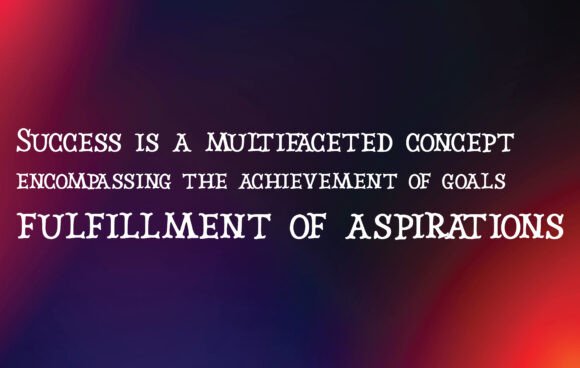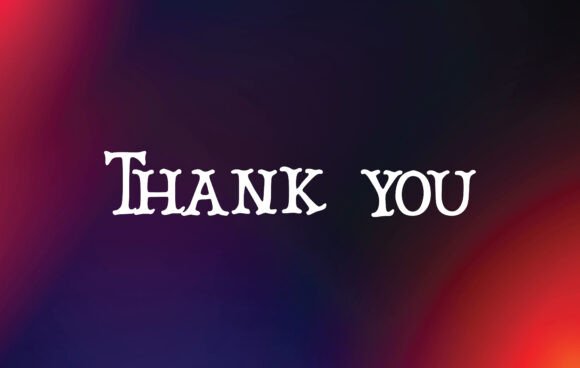
Have you ever stared at a blank screen, trying to come up with the perfect font for your latest design project? You know, that moment when the cursor blinks at you, daring you to make a decision? It’s a feeling we’ve all been there, and it’s exactly why we’re excited to introduce you to the Camel Font.
This versatile font is designed to be a go-to favorite in your collection, effortlessly elevating any creative project with its perfect blend of style and readability. Whether you’re working on a magazine headline, t-shirt design, or social media post, the Camel Font is sure to impress. Its value lies in its ability to work beautifully for both titles and body text, making it a must-have for designers looking to add a touch of sophistication to their work.
Camel Font Key Features
- Unique Characteristics: Camel Font features a distinctive, handwritten style with a camel-hump-like design element, giving it a unique and eye-catching appearance.
- Font Weight: Camel Font is available in various font weights, including light, regular, medium, bold, and extra bold, allowing designers to choose the perfect weight for their design.
Camel Font Review
As a designer, I was excited to dive into the Camel Font and see what it had to offer. Here’s my honest review.
The Camel Font has a unique, hand-drawn feel that sets it apart from other sans-serif fonts.
- It’s perfect for creating a personal, approachable vibe in branding and marketing materials.
- The font is highly legible, even at smaller sizes, making it ideal for body text and captions.
- The Camel Font is also highly customizable, allowing designers to easily tweak the font’s weight, spacing, and other characteristics to suit their needs.
While the Camel Font has many strengths, there are a few areas where it falls short.
- The font may not be suitable for formal or professional applications, as its hand-drawn feel can come across as informal or childish.
- The Camel Font may not be the best choice for text that requires a lot of precision or accuracy, as its unique letterforms can make it difficult to read in certain situations.
The Camel Font is a great choice for designers looking to add a touch of personality to their projects. While it may have some limitations, its unique feel and high customizability make it a versatile and effective font for a wide range of applications.
Tips for Getting the Most Out of Camel Font
To get the most out of Camel Font, consider the following tips:
- Use Camel Font in bold or italic to add emphasis to your text.
- Combine Camel Font with other fonts to create a unique and interesting visual effect.
- Experiment with different font sizes and colors to create a visually appealing design.
Camel Font is commonly used in:
- Logos and